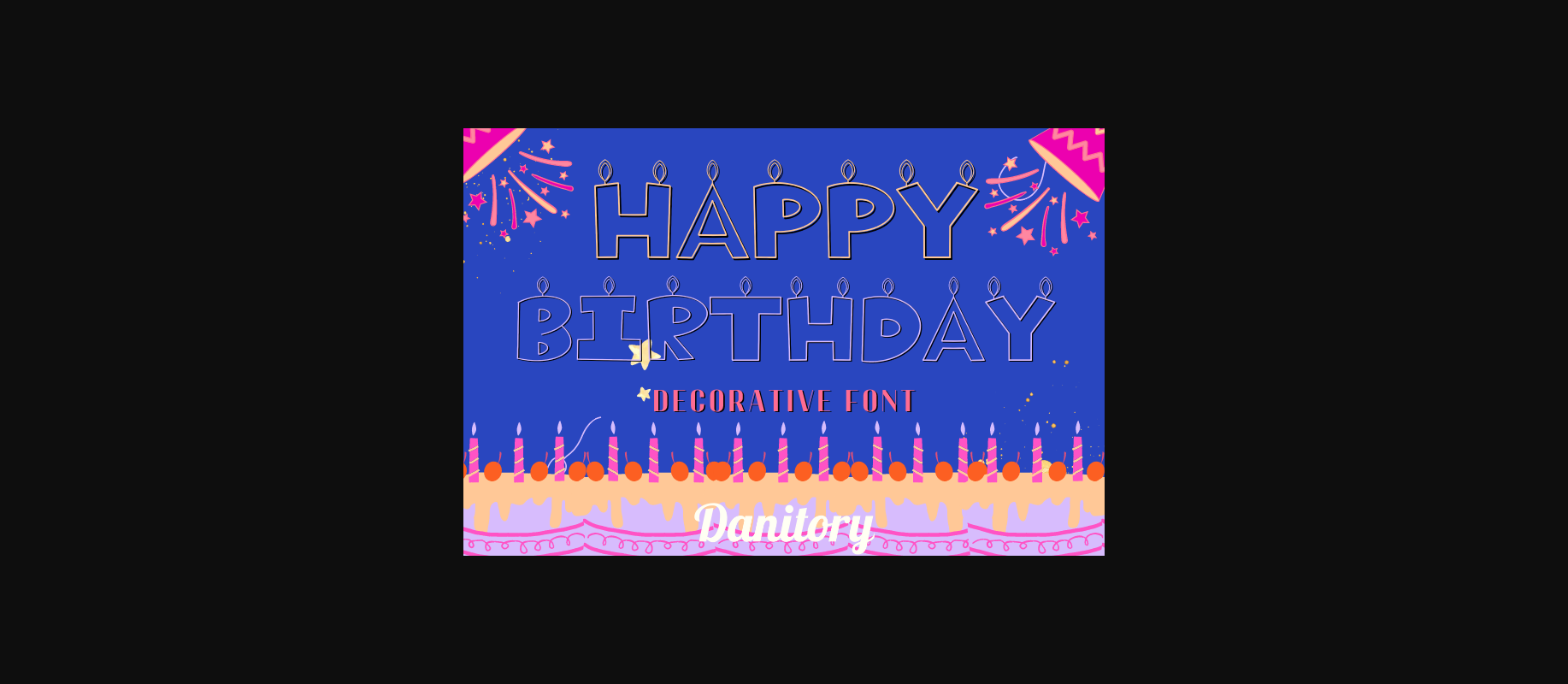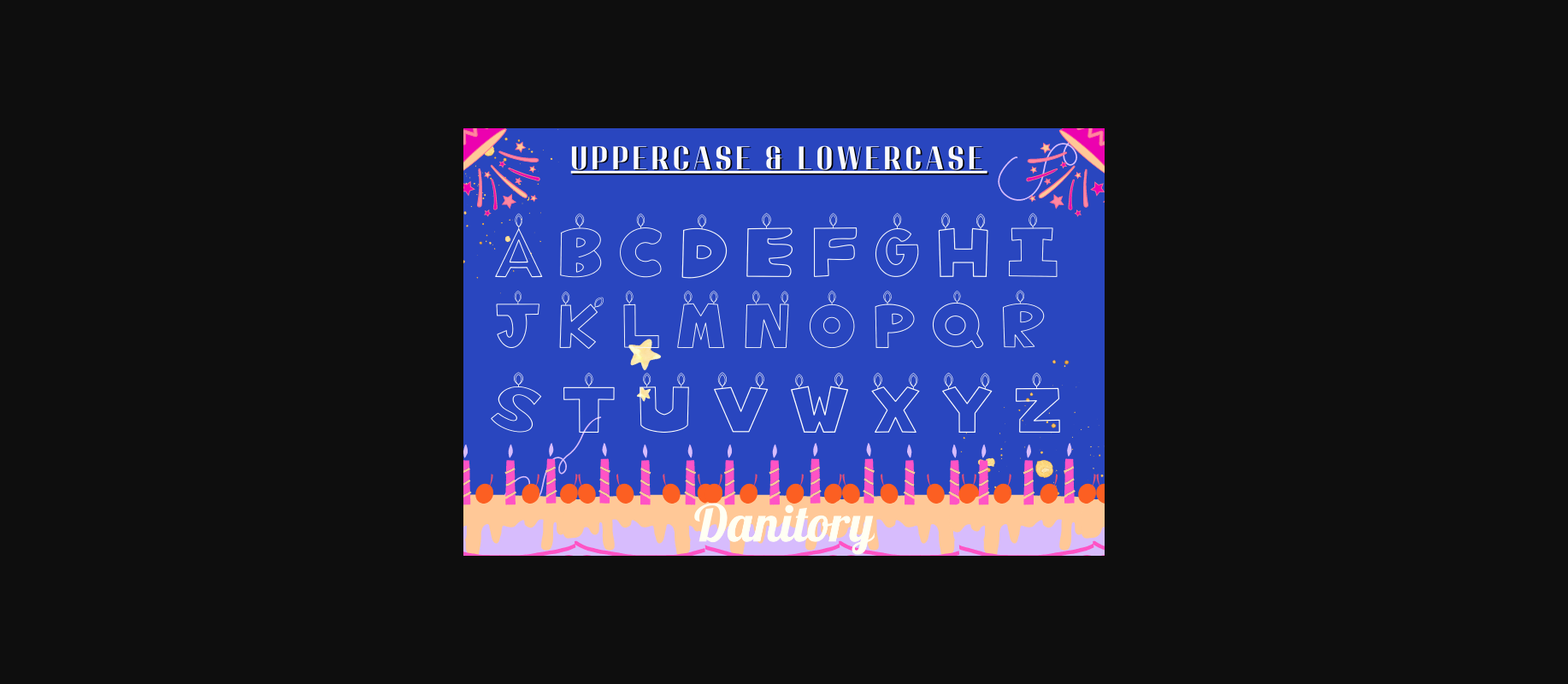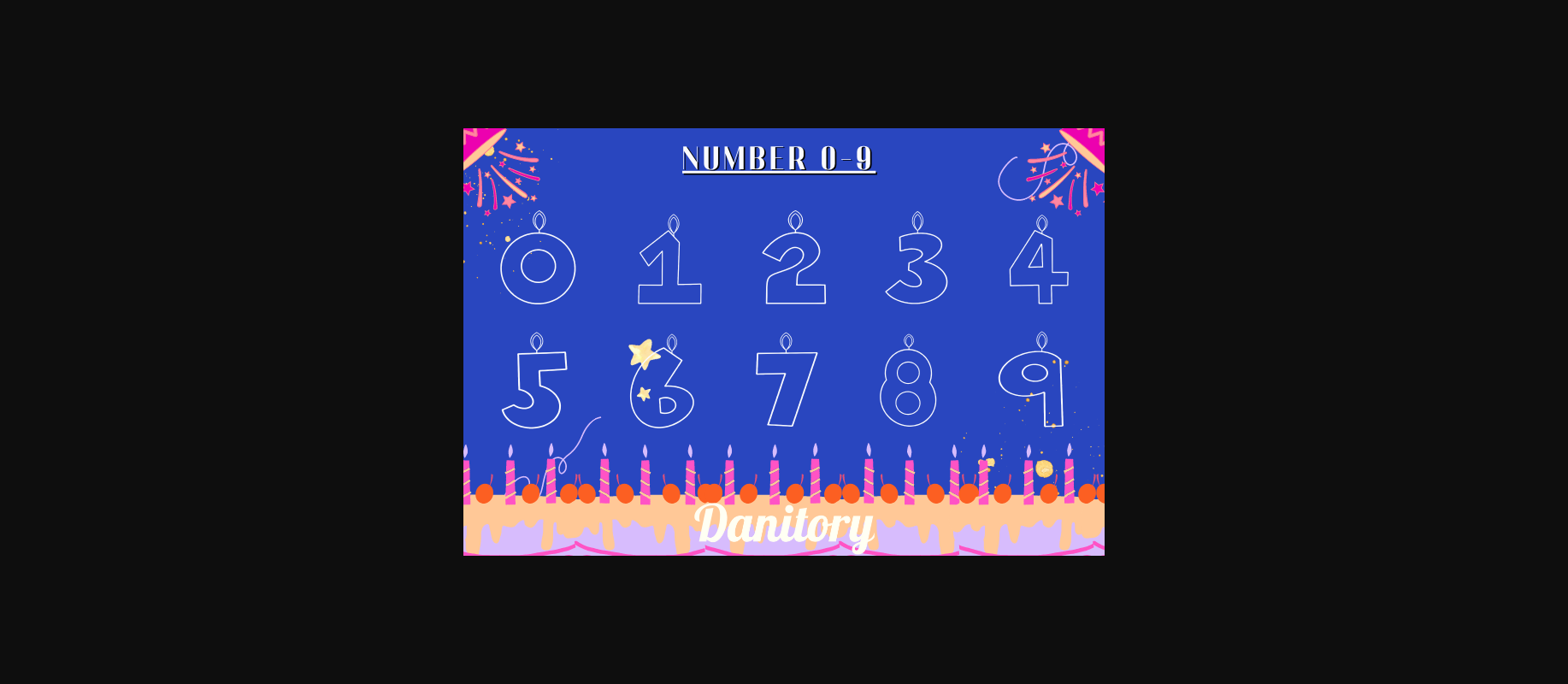
About Happy Birthday Font
Happy Birthday is a cute and bright decorative font with decorative candles. You can apply and use this font on various digital products such as cards, mugs, tote bags, and many more.